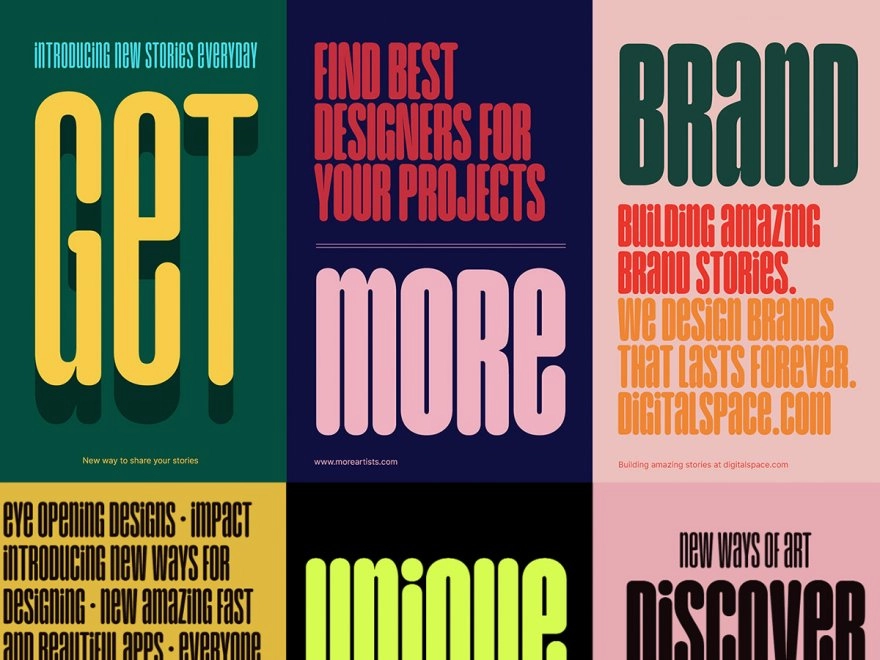
10 best web design fonts of 2025
Looking for a web font suitable for your designs? Some of these popular choices from last year may be just what you're after.
Looking for a good font for your latest web design project?
As a writer, I always pay close attention to typography. But a website with an accessible font that also flaunts a bit of personality can make a huge difference for any visitor who comes to your website. It's certainly something you should be thinking about when using the best website builder for small businesses, and especially if you want to use the more art-minded web builders out there.
Well, I'm happy to report that there are plenty of great web design fonts to choose from. Here are my top picks right now, but if you need more, see our list of top free fonts for designers too.
01. Brandon Grotesque
Brandon Grotesque is a hugely successful font by HVD Fonts (run by the excellent type designer Hannes von Döhren). According to the designer, the font is influenced by the geometric-style sans serif faces that were popular during the 1920s and 30s.
By coupling Brandon Grotesque for headlines with Brandon Text for body, you have a stylish solution for clean, crisp portfolio sites. See it in use at the portfolio sites of Jack Hughes, New Future Graphic and Ben the Illustrator.
02. Galgo Condensed
Galgo Condensed adds a bold yet sophisticated touch to web design. This elegant typeface has clean lines and enough character to stand out without cluttering your content. Its condensed style is ideal for headlines and navigation menus, where space matters. It also maintains great readability at different sizes.
The font shines in both minimal and expressive designs. It creates a modern vibe that suits fashion, lifestyle, and creative portfolio sites. Designers love Galgo Condensed for bringing a refined look to their digital projects.
03. Avenir
Avenir was designed back in 1988 by renowned type designer Adrian Frutiger (he designed, amongst many others, Univers, Versailles and of course the eponymous Frutiger).
Avenir means 'future' in French and is as hugely popular as a web font as it is in print - and it works well in both body text and headlines. Bristol-based design agency Beef uses it nicely on its portfolio site as does Kerem Suer, the latter designer pairing it with Merriweather to great effect.
04. Geist by Vercel
Geist is a modern sans-serif typeface that balances function and form. It’s an ideal choice for web apps and content-heavy sites. Its clever shapes and maximized space make it highly legible.
This font has a clear focus on screen rendering. Each character is designed to fit various devices and resolution settings. The font also comes in various weights, from thin to bold. This makes it easier to have a clear visual hierarchy for your content-heavy designs.
05. Futura
It's a modern classic, it's a fact. And in 2013, Futura saw a resurgence (although it never really went away). Futura was designed back in 1927 by Paul Renner, and you probably recognise it as Volkwagen's advertisement font. And it works beautifully on independent magazine site The Gentlewoman.
06. Aalto Display
Aalto Display has a very unique style to it. This expressive typeface has special character shapes and small quirks that make it interesting. It’s great for memorable headlines and brand identities. But even with its artistic flair, Aalto remains easy to read.
The font is very popular in creative fields, especially for design studios, cultural institutions, and brands that want to show artistic sensibility. Aalto's unique letterforms draw the eye, making it a strong choice when typography also needs to be a design element.
07. Sofia Pro
Redesigned in 2012 by Olivier Gourvat, this typeface now supports a wide range of languages with more than 500 glyphs. Sofia Pro (not to be confused with the Google font, Sofia) has 16 fonts in total, so can be used across a whole site with ease.
Lots of nods to Futura, but a really clean, classic typeface. Interesting fact, it was used as the font for the 85th Academy Awards (2013). You can see it in use at fashion house Muuse.
08. Round 8
Round 8 adds fun geometry and a friendly vibe to web design. This charming typeface by atipo mixes circular shapes with straight lines. The result is a modern yet timeless balance. Its rounded terminals give it a very welcoming character, perfect for brands that want to feel accessible and human.
The font family offers several weights. This lets designers create contrast while maintaining a consistent look. Round 8 fits perfectly into educational websites, children’s brands, and tech startups.
The font family includes multiple weights and styles. This gives you a full toolkit for refined typography. PP Mori pairs beautifully with luxury brands, architectural sites, and minimalist interfaces.